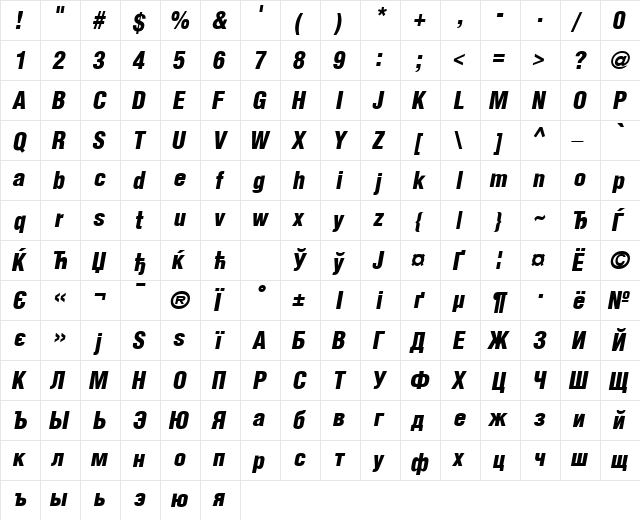
AGLettericaCondensedLight BoldOblique Font Preview
Design Context for AGLettericaCondensedLight Typeface
AGLettericaCondensedLight offers clean, dependable letterforms without strong stylistic allegiance, making it a practical choice for designers who need flexibility. Its italic angle brings a sense of urgency and motion to the letterforms. Its bold stroke weight gives it real presence on the page. Its narrow stance lets it pack a punch even in space-constrained designs.
Pro Tip: Try AGLettericaCondensedLight for annotation and caption copy alongside an upright companion — the contrast in angle creates a dynamic but ordered typographic system.